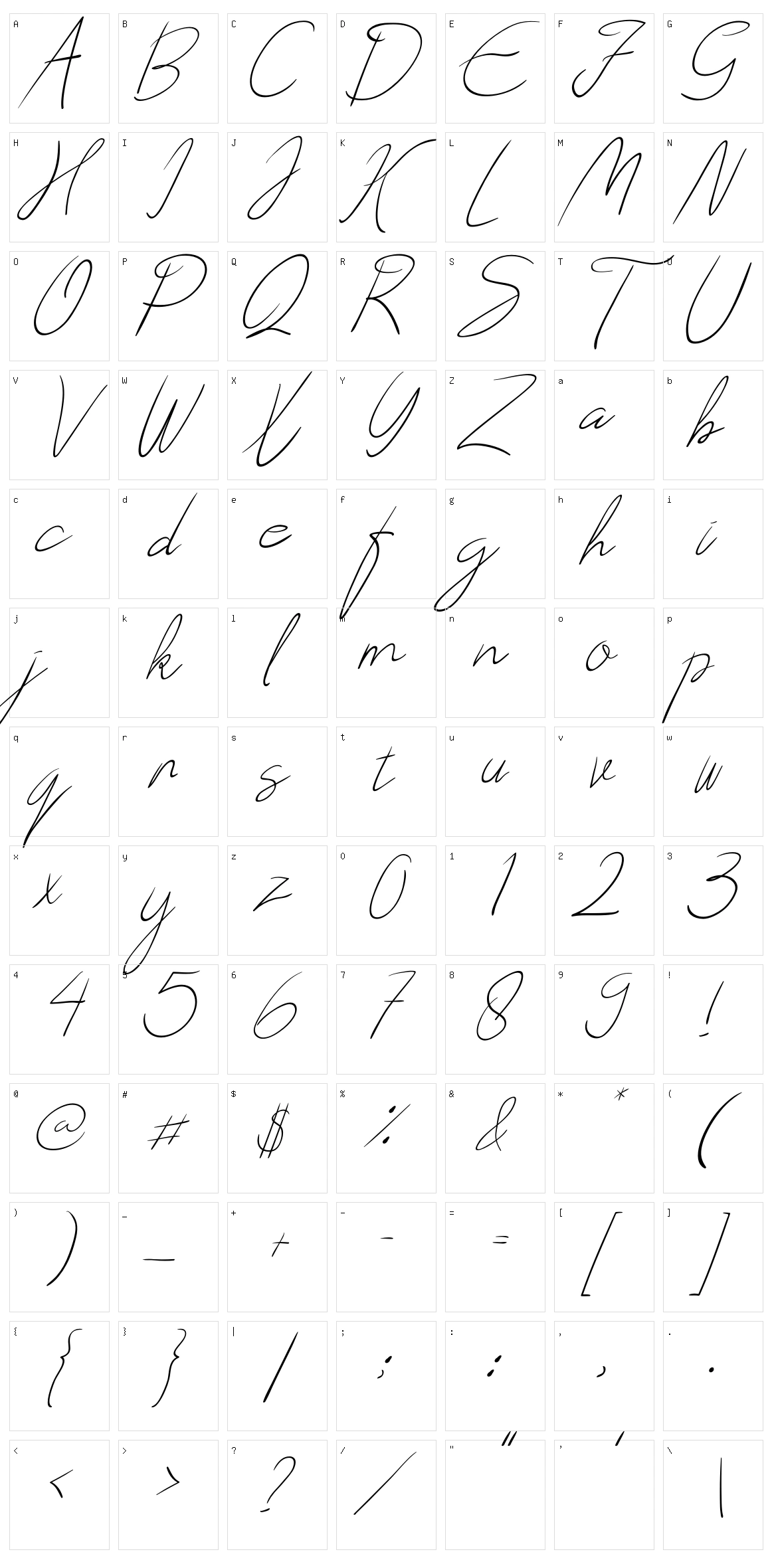
The free font Creates is carefully designed by Ef Studio, showcasing a thoughtful balance of creativity and usability and falls under the Script font style. When you download the ZIP file, it contains only 64.87 KB of font files, making it lightweight and quick to download. Please review the license details below to understand permitted usage and distribution rights. If license information is not available, we recommend using this font for personal projects only or contacting the author directly for commercial usage permissions.